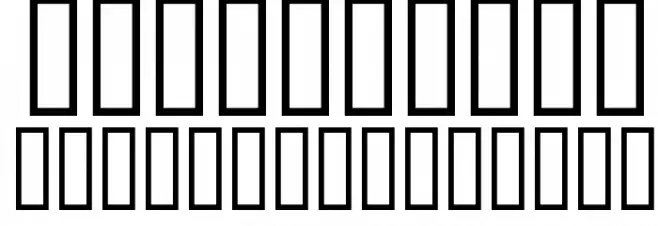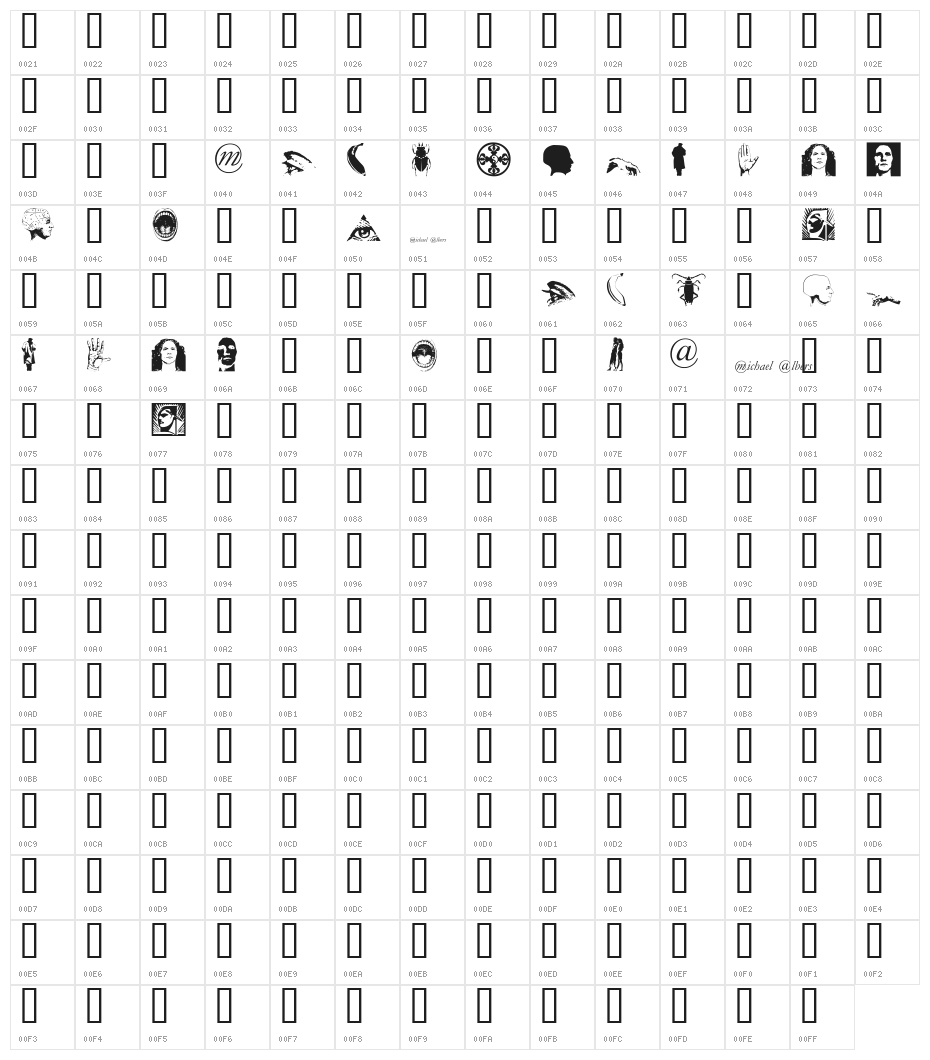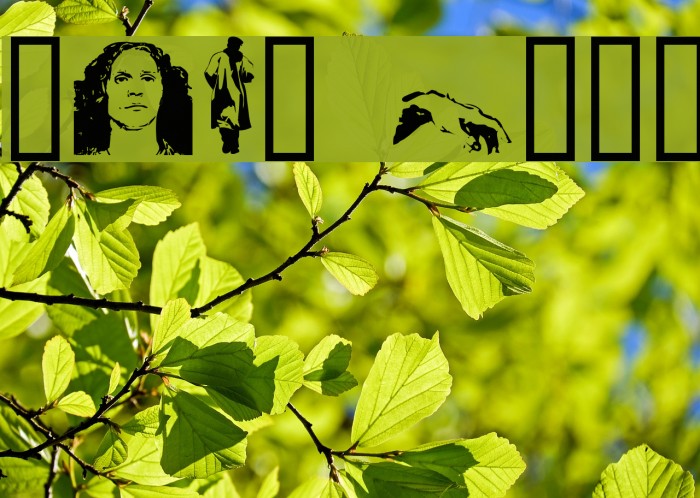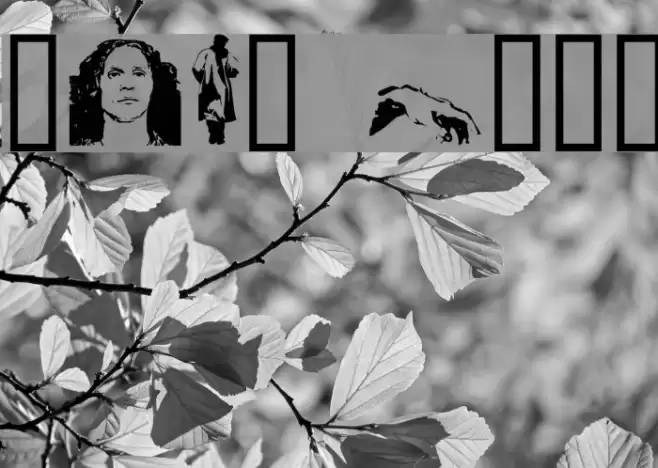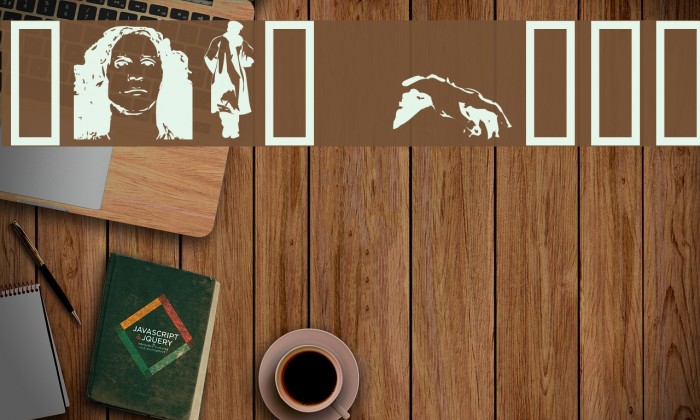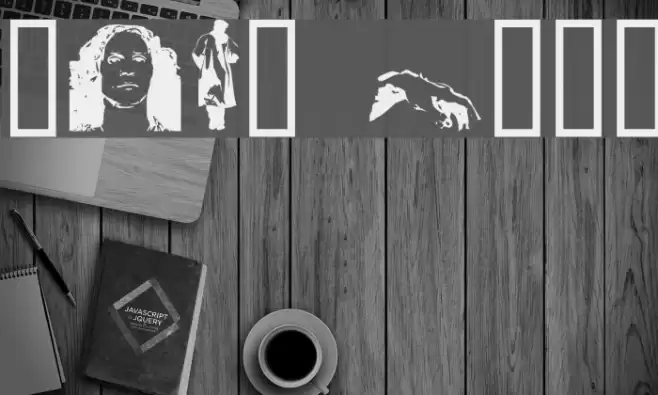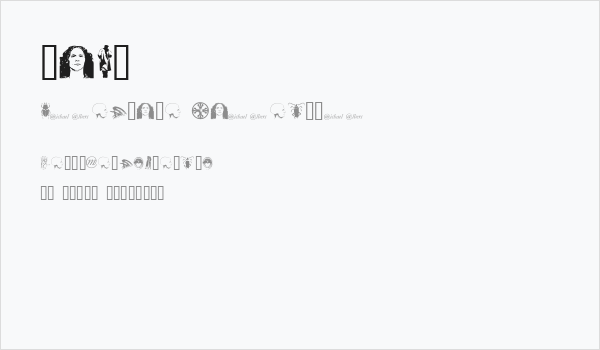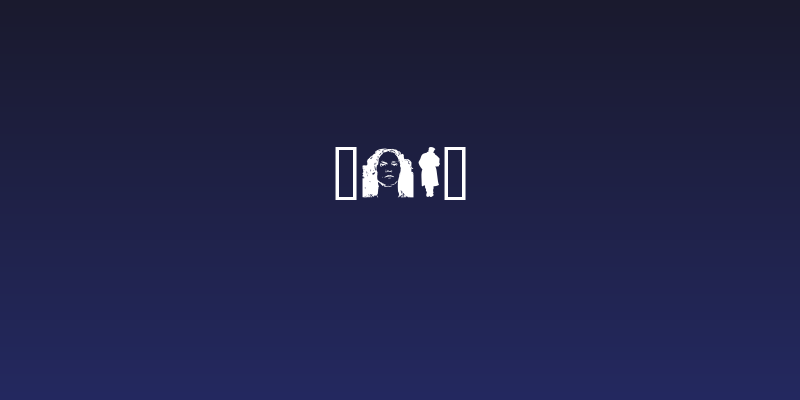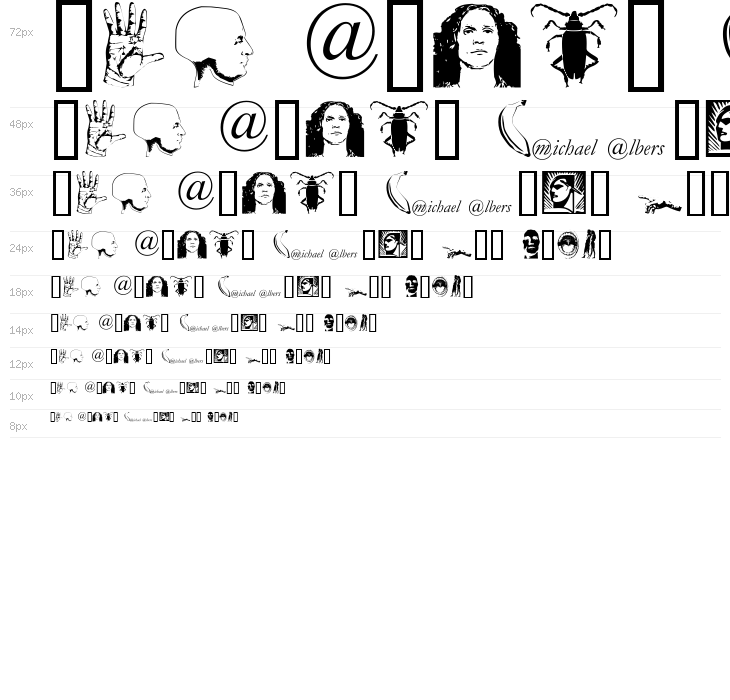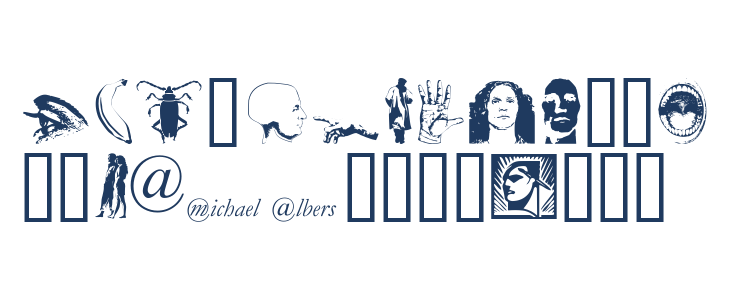
Sign Font
Sign Description
A highly decorative and illustrative font featuring a mix of surreal, pop-art, and collage-style images in place of standard alphanumeric characters. The glyphs include human faces, hands, objects, and abstract symbols, making it more of a pictorial or dingbat set than a traditional text font.
Overall StyleDecorative, Surreal, Artistic
Use CaseDisplay, Posters, Artistic projects, Not suitable for body text
Proposed ProjectsPoster art, album covers, zines, experimental graphic design, alternative branding, and creative editorial layouts.